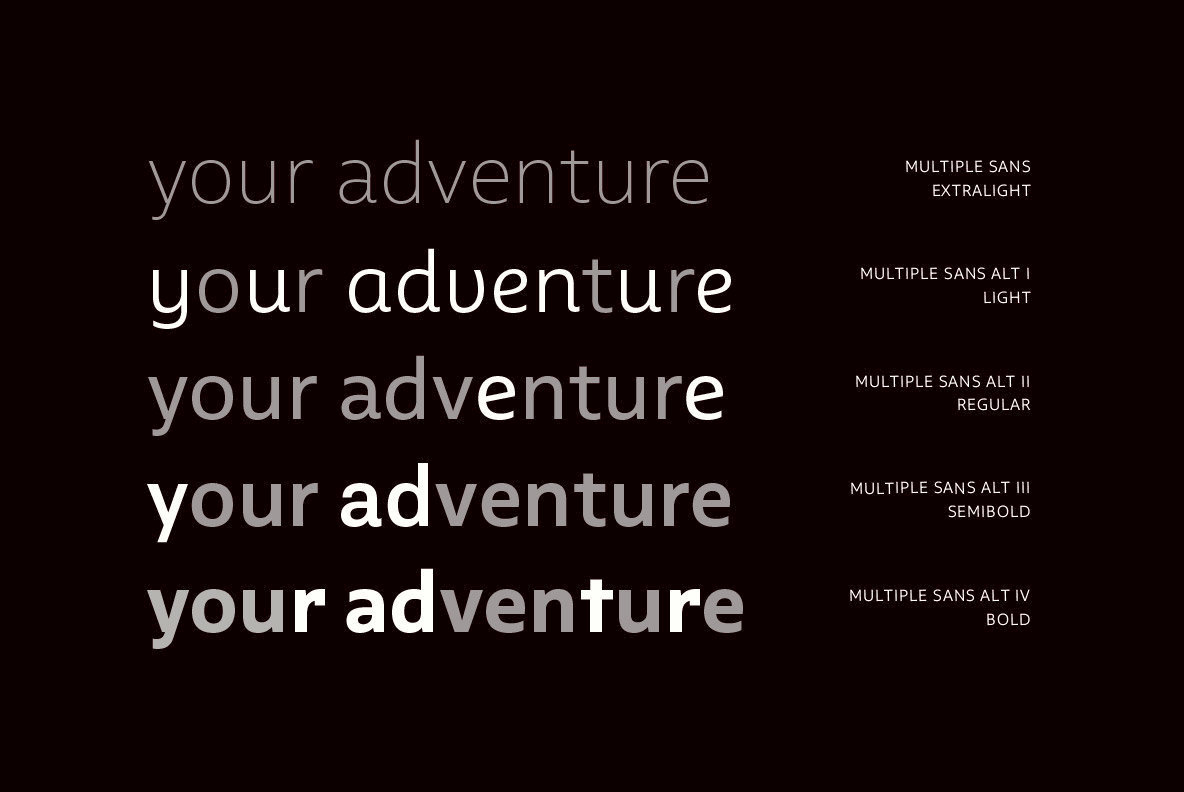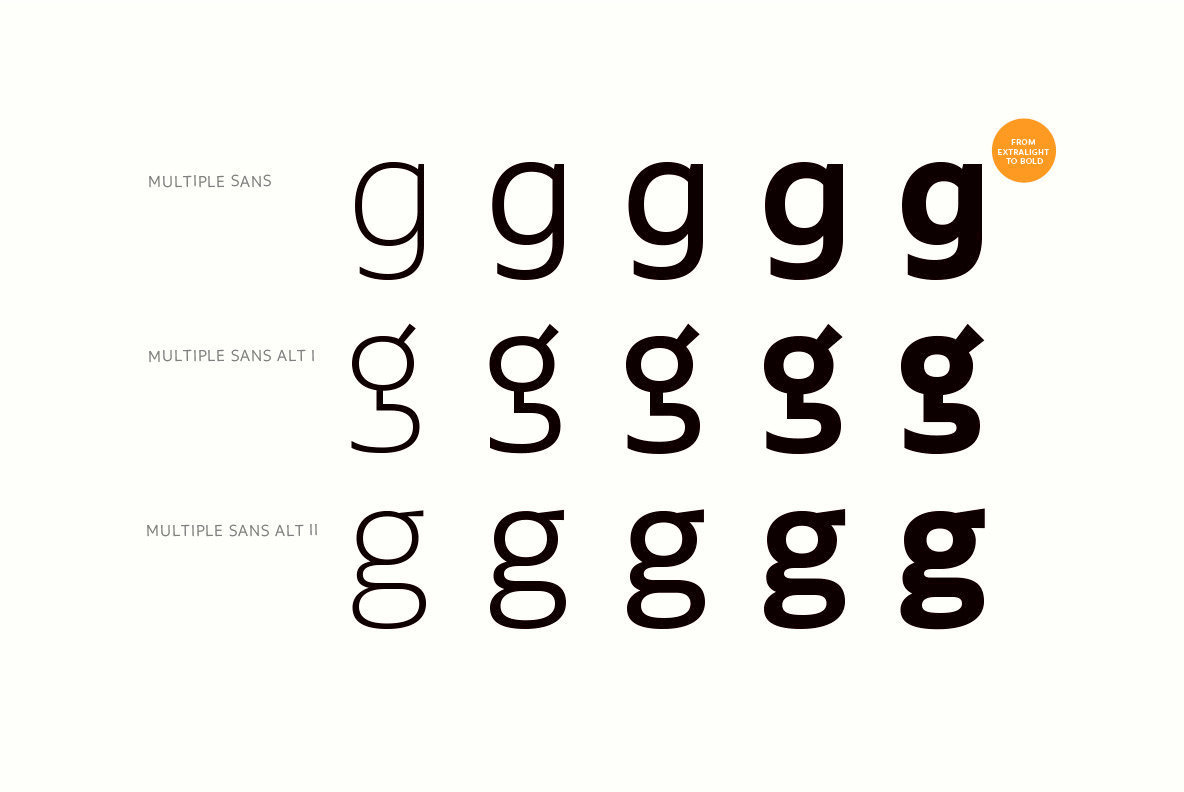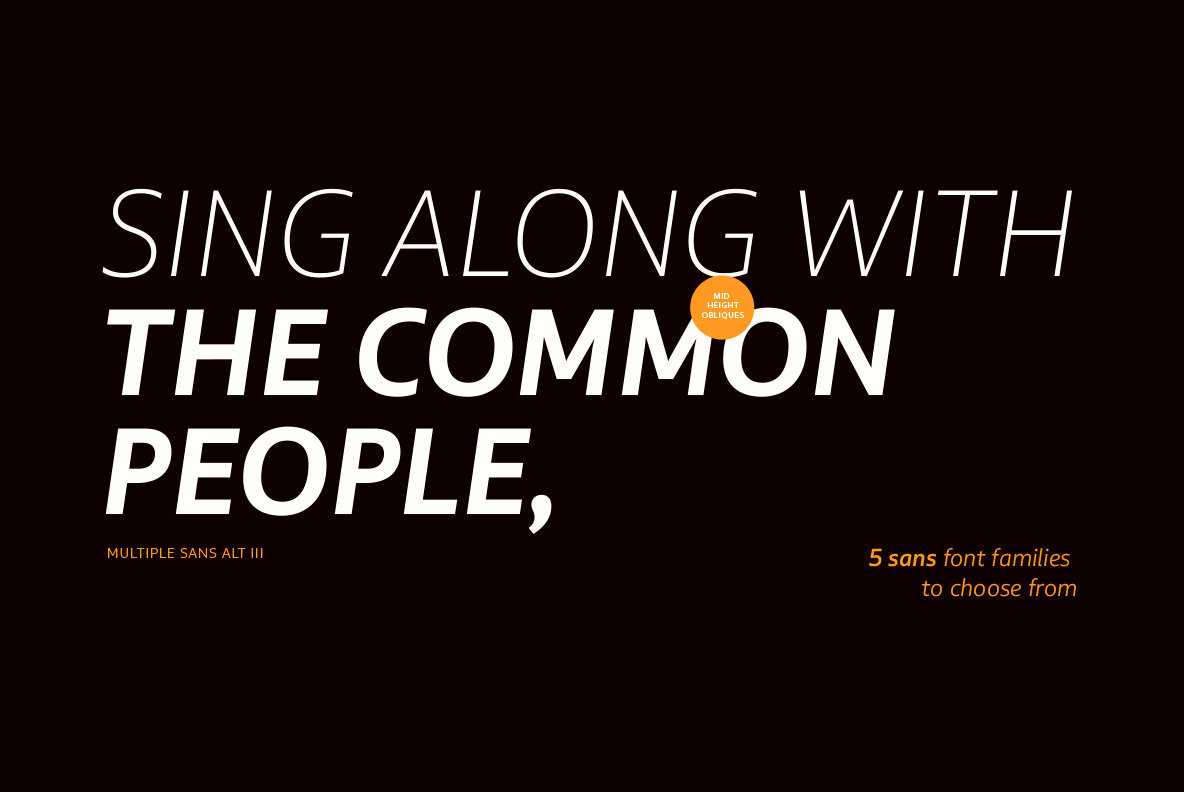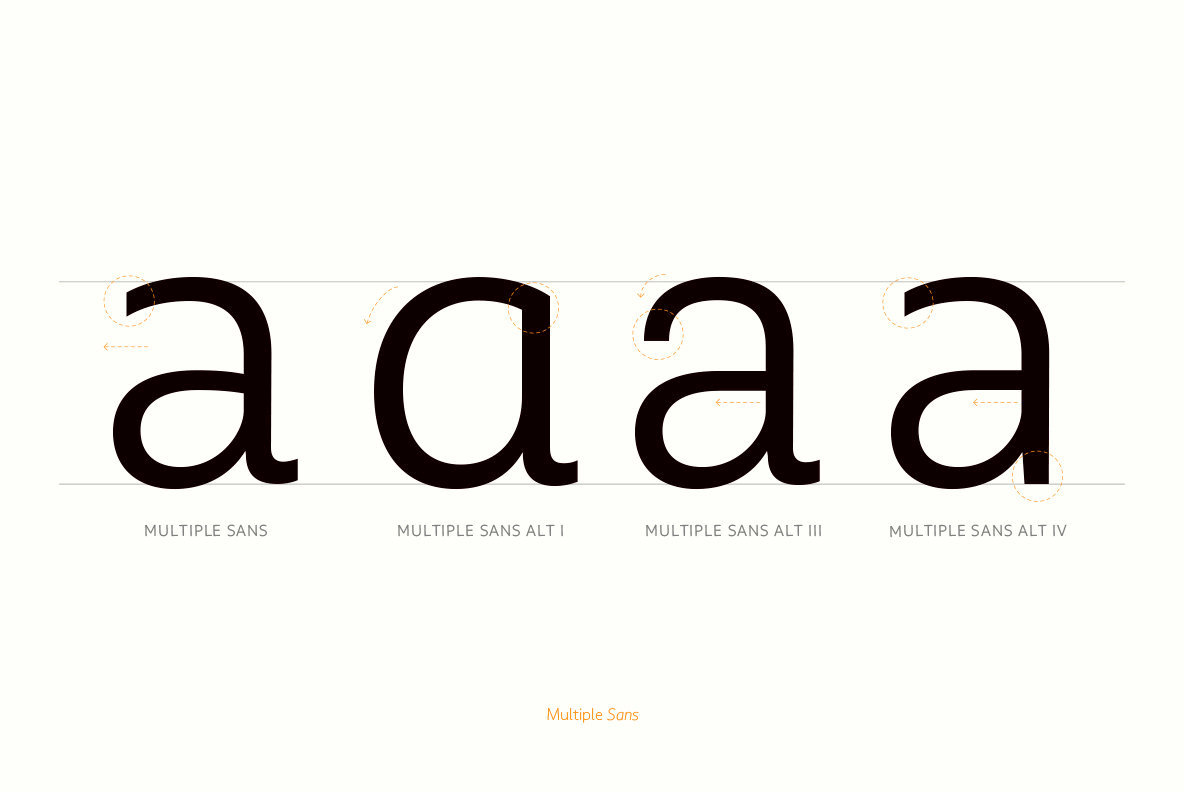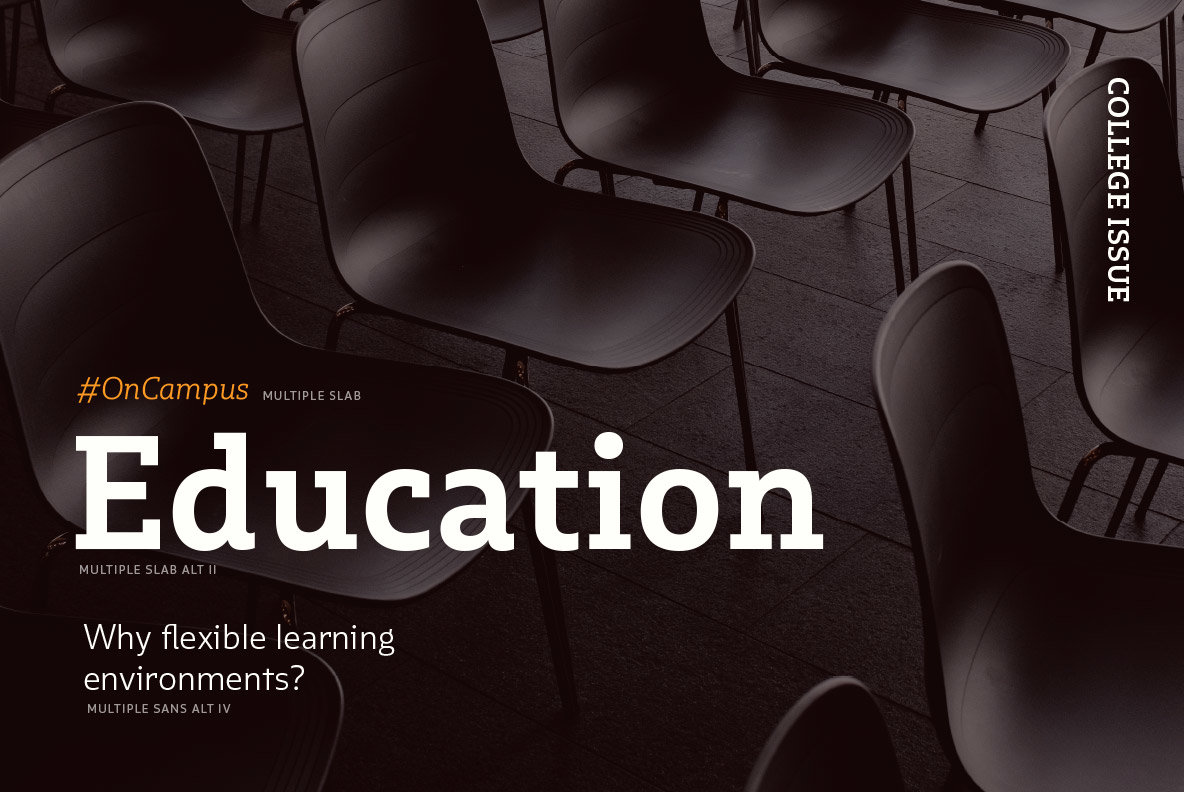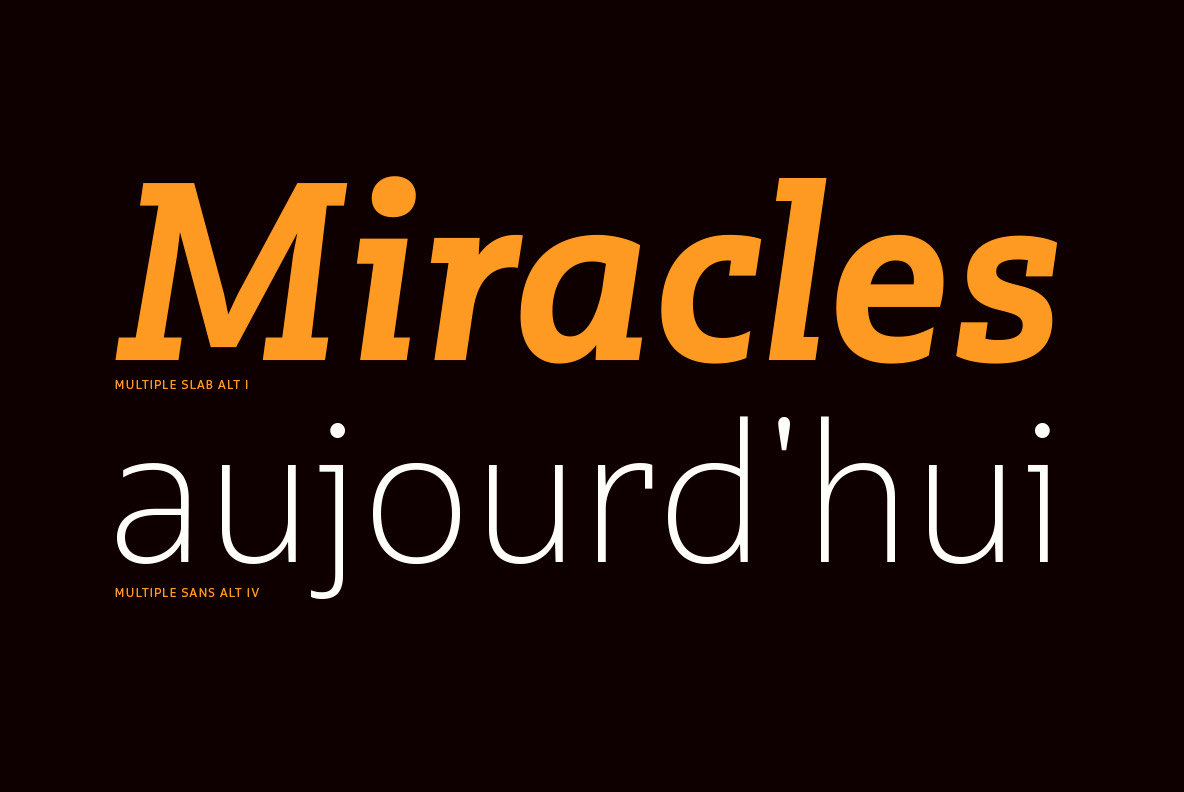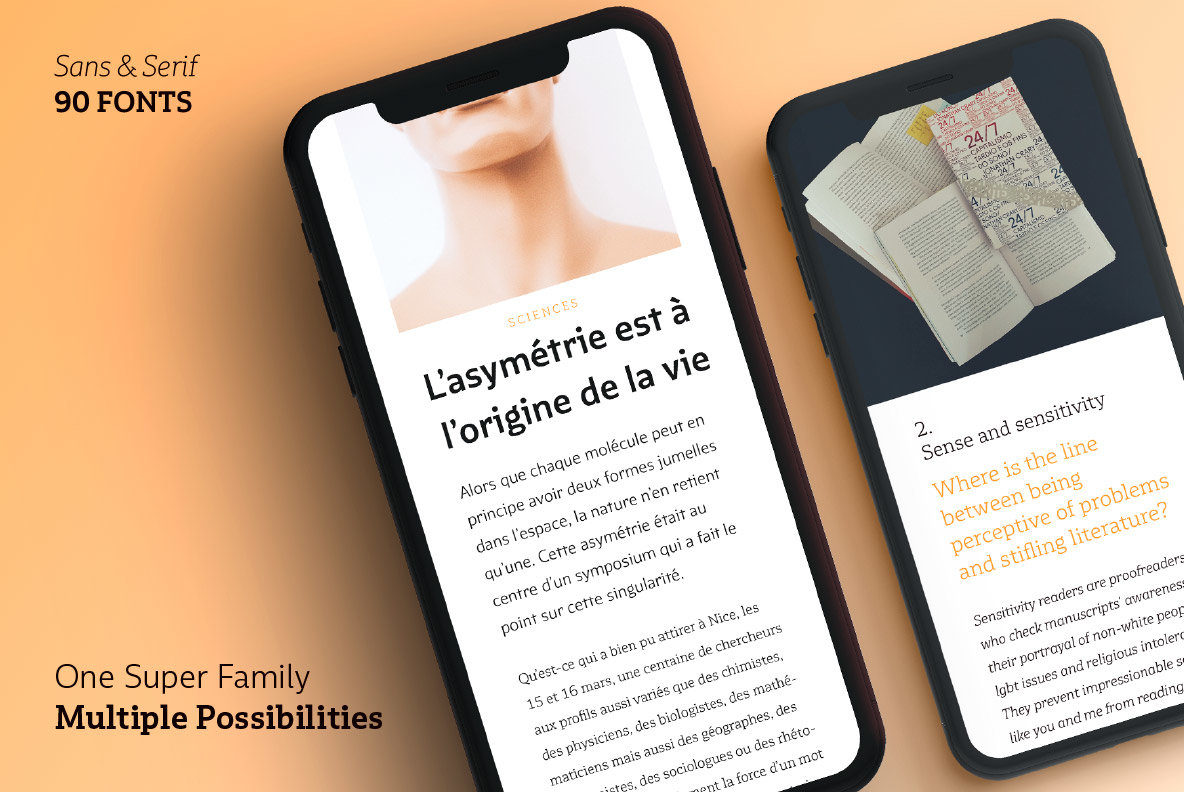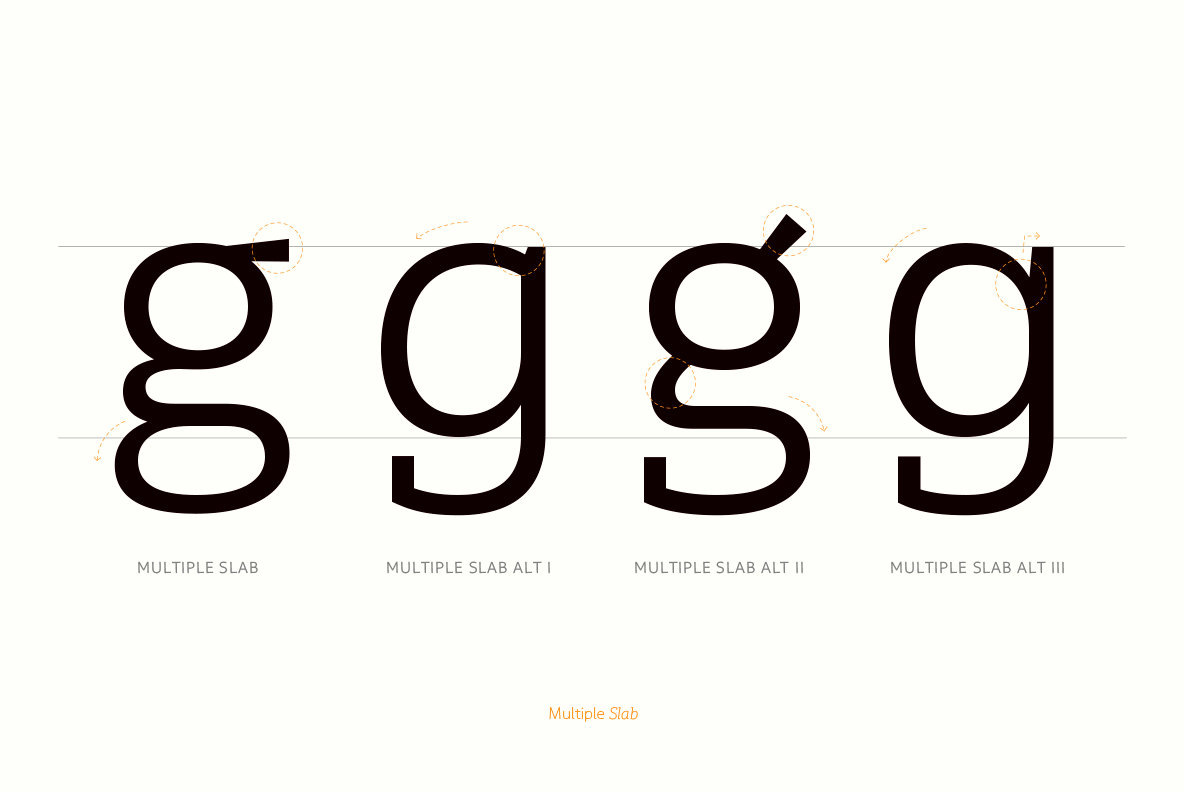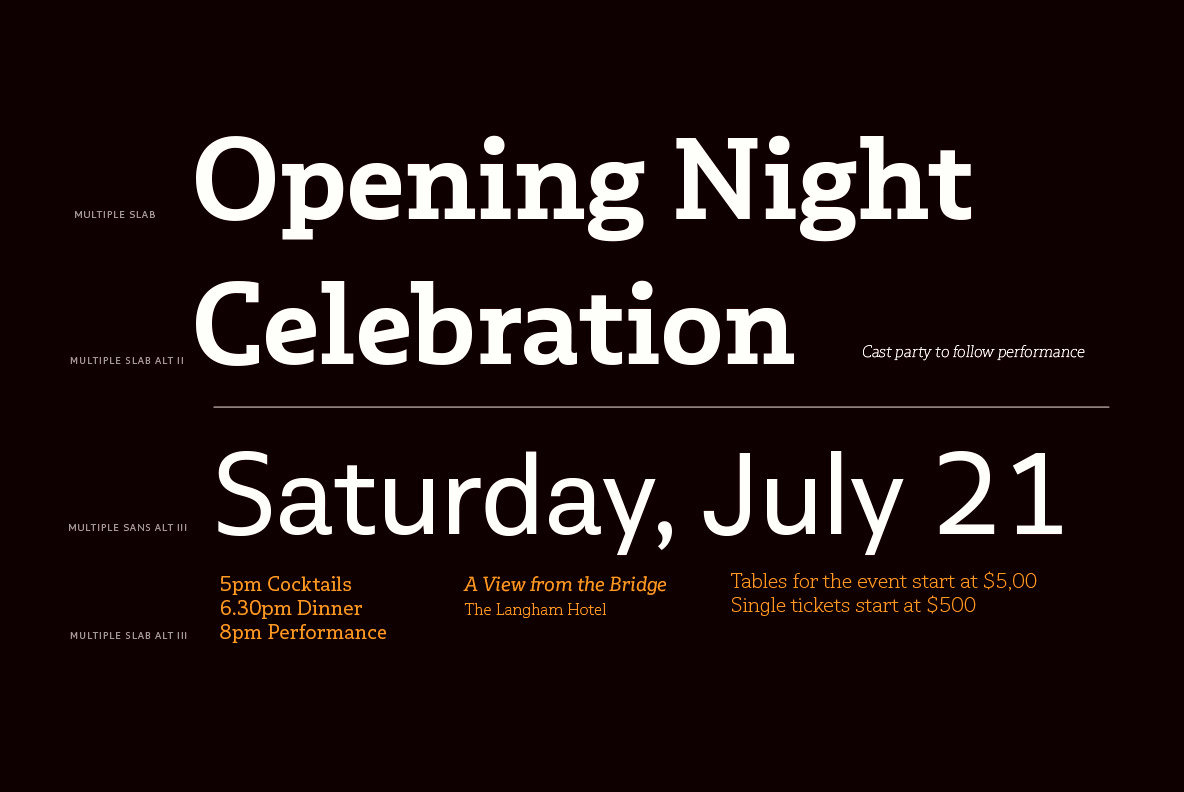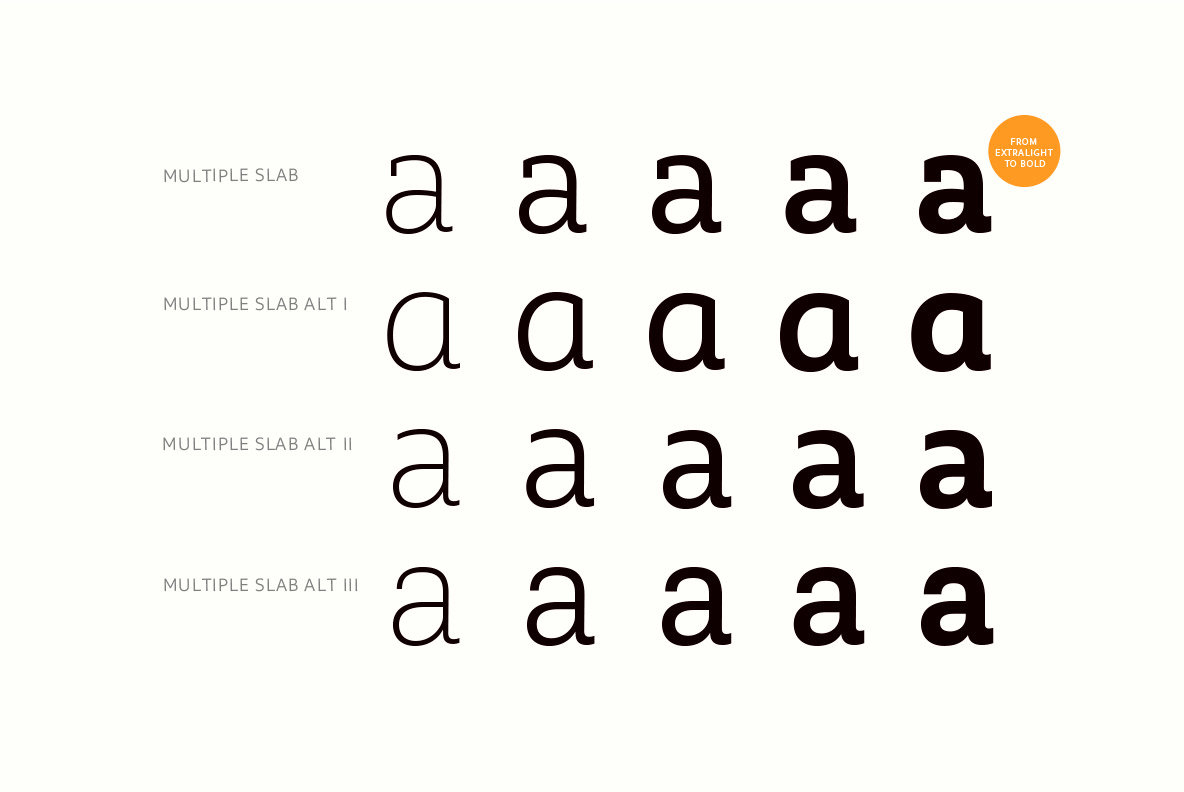
Multiple Font
Multiple comes in 5 weights—ranging from Extra Light to Bold—with matching italics, and contains a 395-character set that supports 207 different languages.
Multiple: one font, multiple faces.